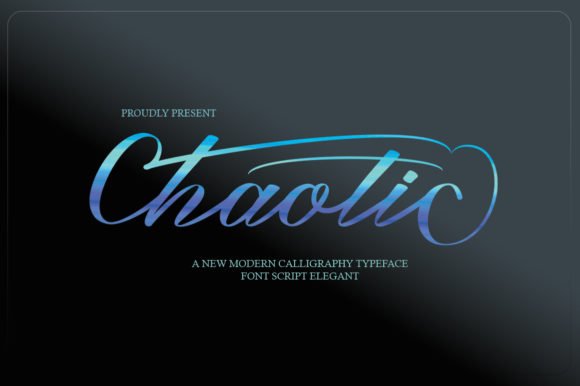
Unleash Your Creativity with Chaotic Font
Have you ever been stuck in a creative rut, unable to express the whimsy and magic that’s swirling in your mind? We’ve all been there – staring blankly at a blank canvas or screen, waiting for the perfect spark to ignite our imagination. That’s where Chaotic Font comes in – a chic and trendy handwritten font that will transport your designs to a world of wonder and enchantment.
With its modern yet whimsical style, Chaotic Font is the perfect tool for designers looking to add a touch of personality to their work. Whether you’re crafting a logo, creating a social media graphic, or designing a wedding invitation, this font is sure to make your designs stand out from the crowd. Plus, with its PUA encoding, you can access all glyphs and swashes with ease – giving you endless possibilities for creative expression.
- Unique Character Set: Chaotic Font features a unique set of characters, including alternate glyphs, ligatures, and swashes, which can be accessed through the font’s built-in features.
- Customizable: The font includes a range of OpenType features, such as stylistic sets, positional forms, and contextual alternates, allowing designers to customize the font to suit their needs.
Chaotic Font Review
When I first laid eyes on Chaotic Font, I was immediately struck by its bold and unpredictable nature. The font’s dynamic letterforms and varied typography elements make it a true standout in the design world. ✨ I love how it can add a sense of energy and movement to a design, making it perfect for projects that require a bit of edge.
One of the things that works particularly well in Chaotic Font is its ability to adapt to different design contexts. Whether you’re working on a website, social media campaign, or print material, this font is sure to bring a unique touch to your work. ✨ Additionally, the font’s open-source nature makes it easily accessible to designers of all levels, which is a definite plus.
- ⚠️ Chaotic Font can be overwhelming if not used judiciously – its bold style can easily dominate a design, making it difficult to read or understand.
- ⚠️ The font’s lack of consistency in letterform design can make it challenging to use in situations where precision and accuracy are crucial (e.g., technical documentation or academic papers).
Overall, I’d say Chaotic Font is a great addition to any designer’s toolkit. While it may not be suitable for every project, its unique qualities make it a valuable asset for those looking to add some excitement to their work. With careful consideration and application, Chaotic Font can elevate your designs and leave a lasting impression on your audience.
To get the most out of Chaotic Font, use it for creative projects like social media graphics, posters, and flyers. It’s also great for adding a touch of personality to business cards, resumes, and other professional documents.